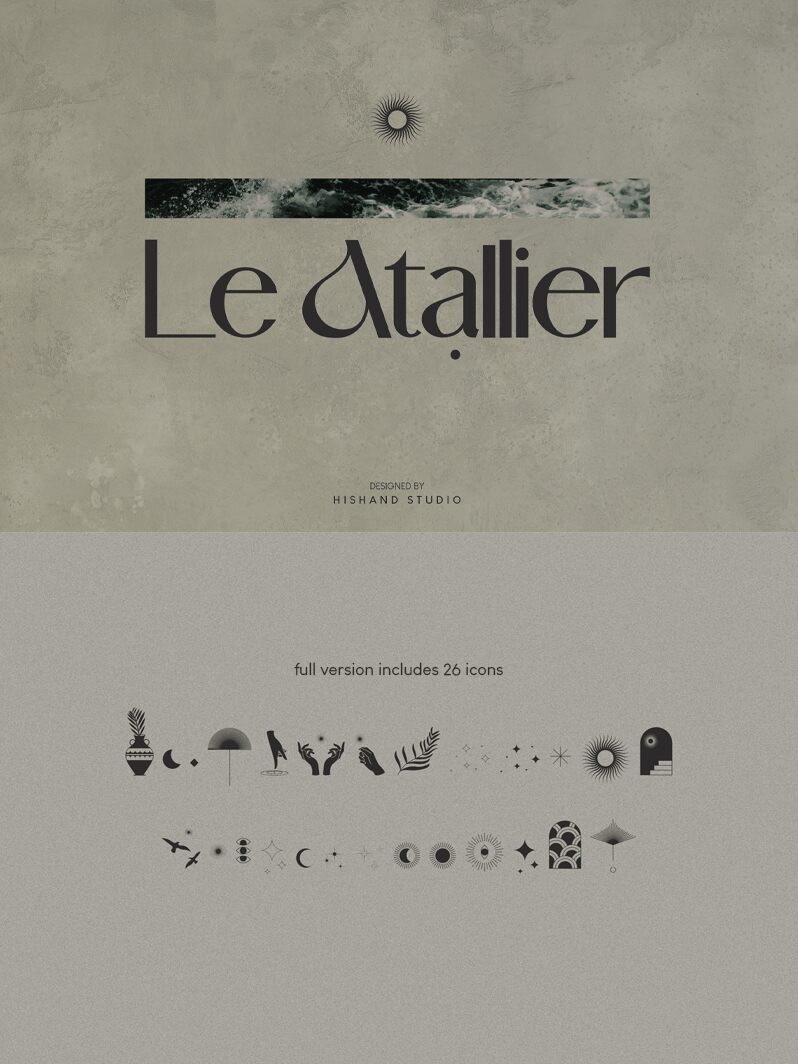
Le Atallier is a striking sans-serif font that exudes a harmonious blend of sophistication and modernity. Designed by Hishand Studio, this typeface captivates with its bold, clean lines and well-proportioned letterforms. The font's strong, geometric aesthetic lends it an air of authority and confidence, making it an excellent choice for a wide range of design applications, from corporate branding to editorial projects.
Le Atallier's versatility and impactful presence make it a noteworthy addition to any designer's typographic toolkit, offering a refined and distinctive typographic solution for both digital and print mediums.
Le Atallier